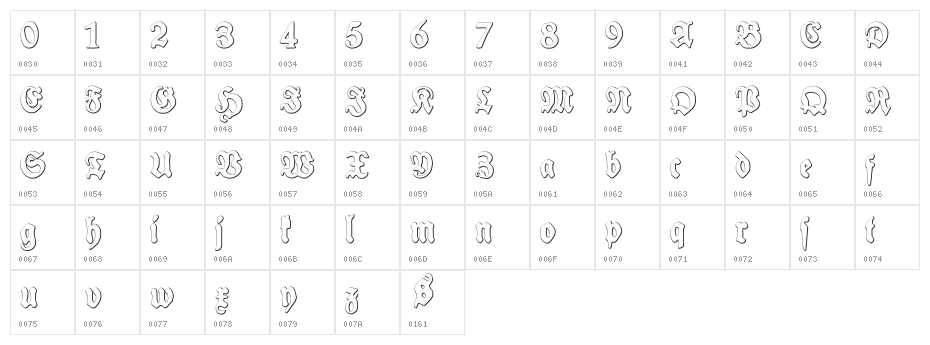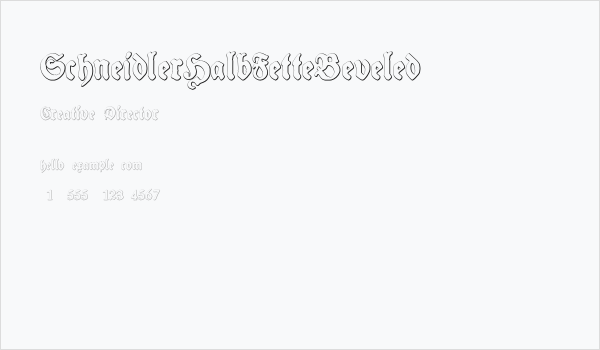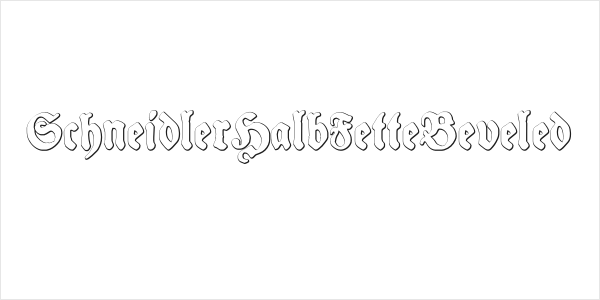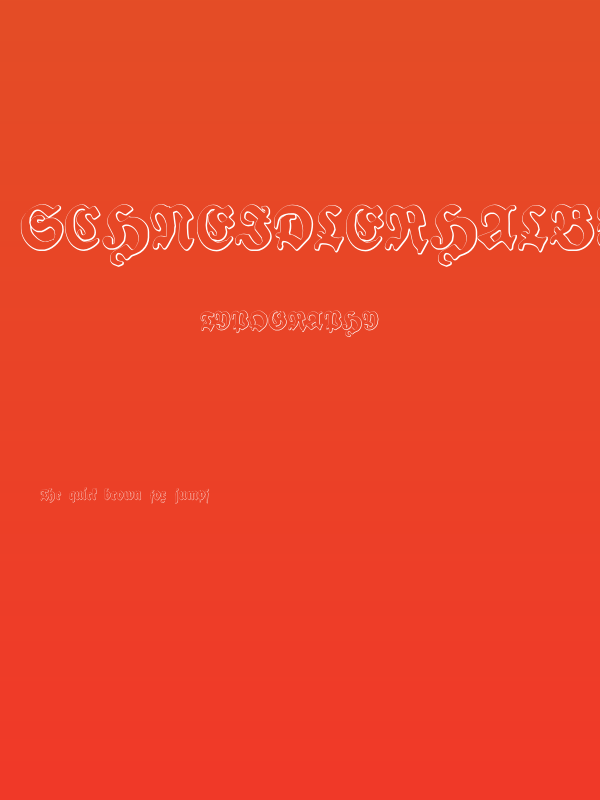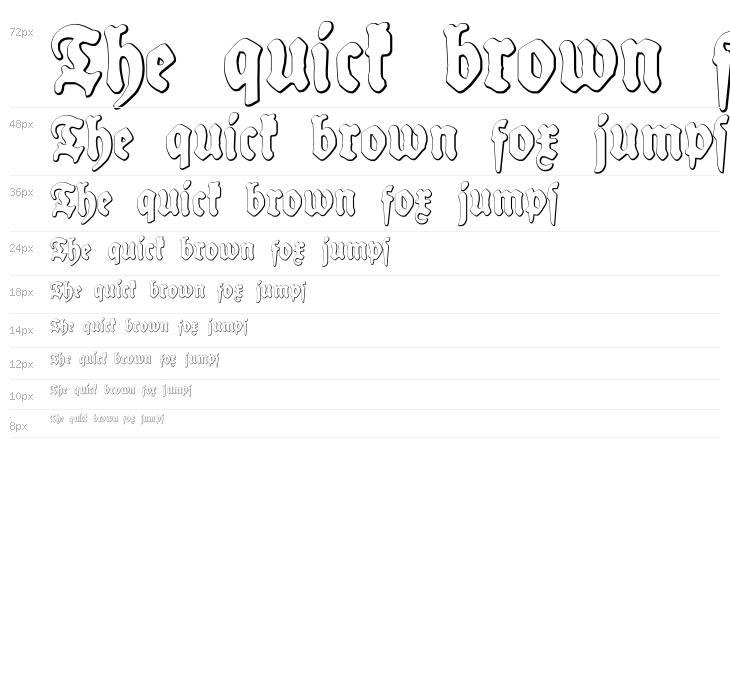
SchneidlerHalbFetteBeveled Font
SchneidlerHalbFetteBeveled Description
This font features a distinctive beveled style with a strong blackletter influence, characterized by its ornate and intricate letterforms. The uppercase letters exhibit a bold and dramatic presence, while the lowercase letters maintain a consistent flow with sharp angles and curves. The numbers are equally stylized, ensuring a cohesive look throughout. The font's unique beveled edges add depth and dimension, making it stand out in any design. Its historical and gothic aesthetic is perfect for projects that require a touch of elegance and tradition.
| Proposed Projects | Ideal for historical documents, gothic-themed designs, book covers, posters, and branding that requires a classic and elegant touch. |